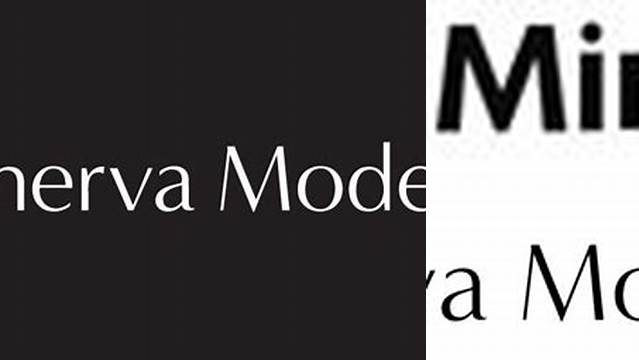
Hey guys! Are you on the hunt for a sleek and stylish font to elevate your design projects? Look no further! The Minerva Modern Regular font is here to save the day. This font is a fantastic choice for everything from branding to web design, and the best part? You can download it for free! Let's dive into why this font is so awesome and how you can make the most of it.
1. What is Minerva Modern Regular Font?
So, what exactly is the Minerva Modern Regular font? Well, it's a typeface that blends modern sensibilities with classic elegance. Think clean lines, balanced letterforms, and a touch of sophistication. Itâs designed to be highly legible, making it perfect for both headings and body text. The font exudes a sense of professionalism and creativity, making it a go-to for designers who want to make a statement without being too flashy. Youâll find that it works exceptionally well in a variety of contexts, from corporate documents to artistic posters. The beauty of Minerva Modern Regular lies in its versatility; it can be both bold and understated, depending on how you use it. Plus, being a regular weight font, it provides a solid foundation for your text without overpowering other design elements. It's like the reliable friend who always looks good, no matter the occasion. This font isn't just about aesthetics; it's also about functionality, ensuring that your message is delivered clearly and effectively. Whether you're working on a sleek website, a polished brochure, or a captivating logo, Minerva Modern Regular can add that touch of class you've been searching for. In short, it's a font thatâs designed to make your work shine.
2. Key Features of Minerva Modern Regular
What makes Minerva Modern Regular stand out from the crowd? Itâs all about the key features! First off, let's talk about its clean lines and elegant design. The font boasts a contemporary look that's both stylish and timeless. This makes it super versatile for a wide range of projects. You can use it for everything from business cards to website headers. Another crucial feature is its excellent readability. The letters are well-formed and spaced, ensuring your text is easy on the eyes, whether itâs on a screen or in print. This is super important for maintaining your audience's attention and ensuring they grasp your message without any strain. The font also offers a consistent weight and style, which means it looks cohesive across different sizes and applications. You wonât have to worry about the font looking wonky when you scale it up or down. Minerva Modern Regular typically includes a full character set, with uppercase and lowercase letters, numbers, punctuation, and often, special symbols. This gives you a complete toolkit for all your typographic needs. Many versions of Minerva Modern Regular also support multiple languages, making it a fantastic choice for international projects. Imagine being able to communicate your message effectively to a global audience! Lastly, the fontâs adaptability is a major plus. It pairs well with other fonts, so you can create interesting and dynamic designs. Whether you want to use it for headings, body text, or even logos, Minerva Modern Regular has got you covered. Itâs a font that truly understands the balance between form and function, making it a must-have in your font library.